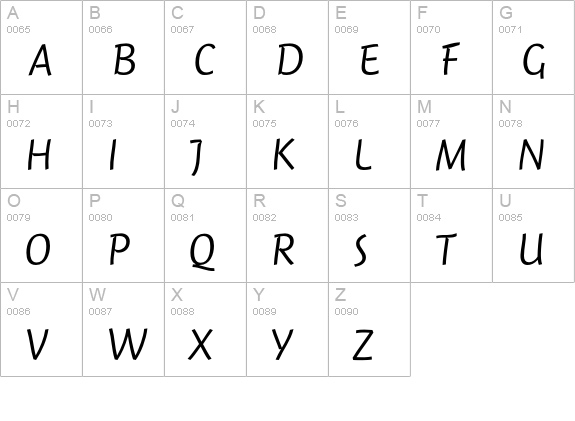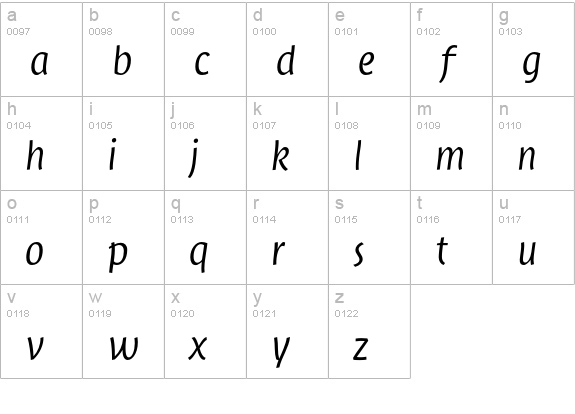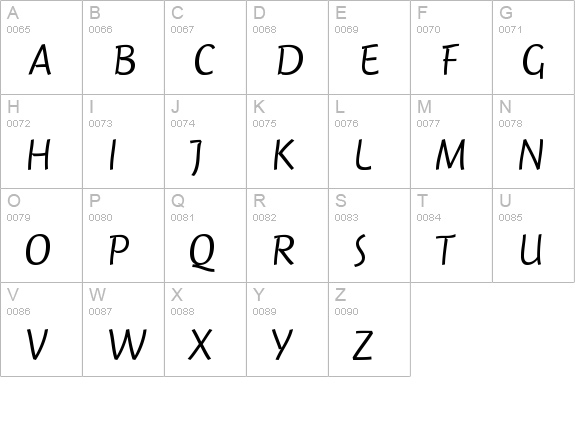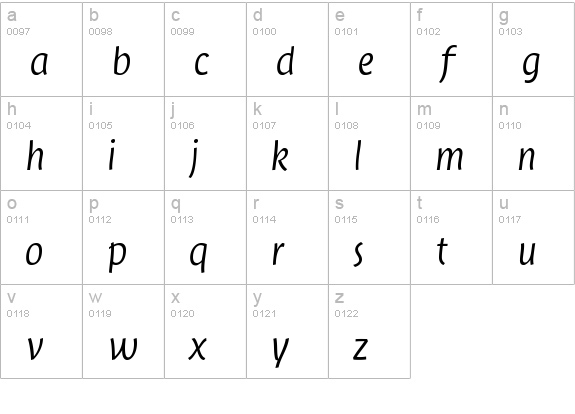
JambonoTF-Light is a refined, elegant variant in the JambonoTF typeface family \xE2\x80\x94 well suited to elegant body text, refined sub-headings, and luxury branding.
JambonoTF-Light font is a modern and stylish typeface that effortlessly combines elegance with simplicity. With its sleek and clean lines, this font is perfect for a wide range of design projects, including branding, logos, headlines, and more. The light weight of the font adds a delicate touch, making it suitable for both digital and print materials. One of the best aspects of JambonoTF-Light font is that it is completely free. Yes, you heard it right! This beautiful font is freely available to download at FontsMarket.com. Whether you're a professional designer or a creative enthusiast, you can now access this incredible font without any cost. The versatility of JambonoTF-Light font truly sets it apart. Its legibility and modern aesthetic make it suitable for various design styles, ensuring that your projects will stand out from the crowd. Whether you're creating a chic and minimalist brand identity or a sophisticated editorial layout, this font will elevate your designs to new heights. The attention to detail in JambonoTF-Light font is evident in every curve and stroke. The carefully crafted letterforms exude a sense of refinement and elegance. The consistent spacing and balanced proportions contribute to its overall harmonious appearance. With JambonoTF-Light font, you have the freedom to unleash your creativity. Its versatility allows it to be paired with other fonts effortlessly, creating unique and visually appealing combinations. Experiment with different sizes, colors, and styles to create captivating designs that leave a lasting impression. In conclusion, JambonoTF-Light font is a stunning typeface that is not only visually appealing but also freely available to download at FontsMarket.com. Whether you're a professional designer or a beginner, this font will undoubtedly enhance your creative projects. So why wait? Start exploring the possibilities and download JambonoTF-Light font today!